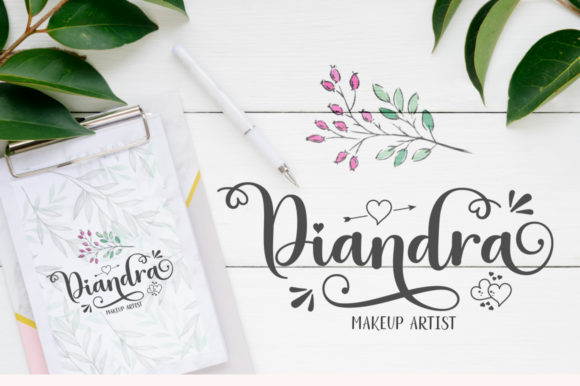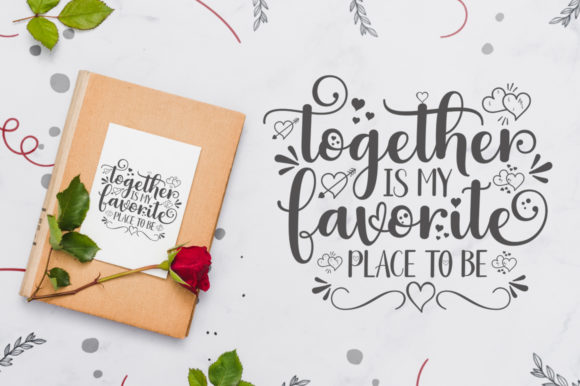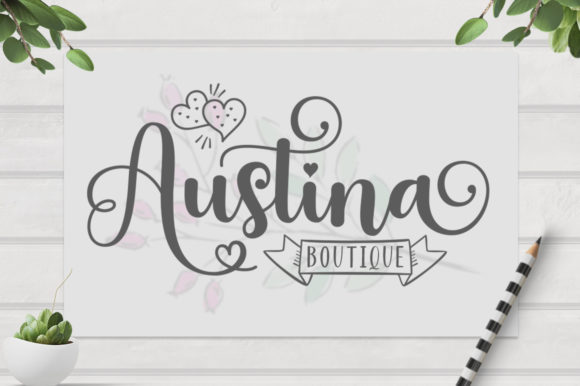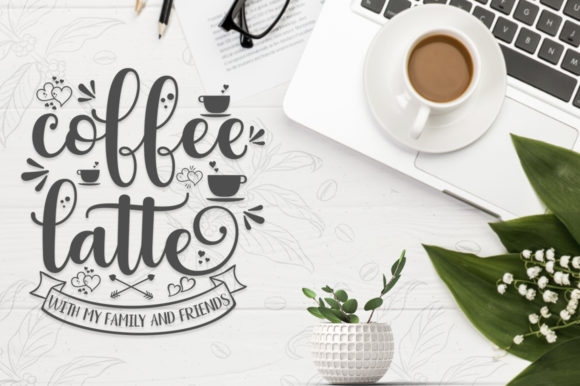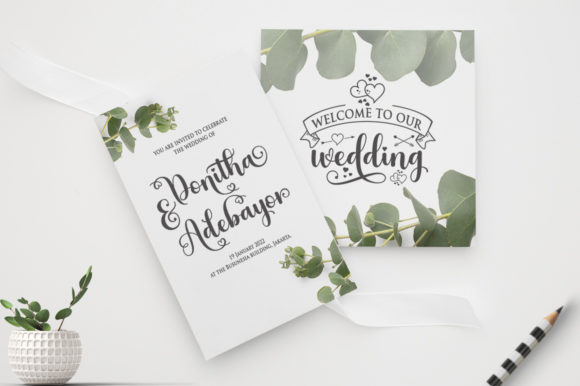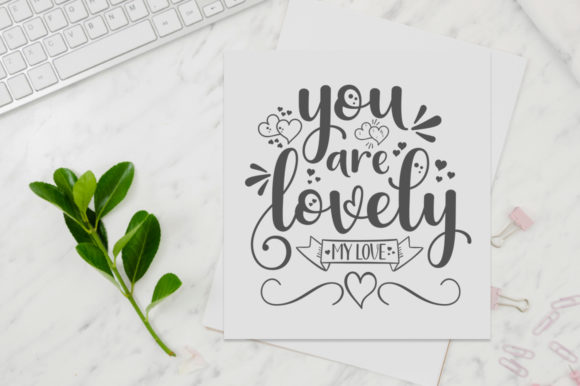
The Magic of Typography: Unleashing Creativity with Hello Bestlady Font
Have you ever had one of those moments where your design just comes alive? The colors, the shapes, the text – everything falls into place, and you know you’ve created something truly special. For designers, these moments are the ones we live for. But what makes the difference between a good design and a great one? Sometimes, it’s just the right font.
That’s where the Hello Bestlady Font comes in – a spectacular duo font that’s equal parts modern and elegant. This versatile font is perfect for a wide range of designs, from wedding invitations to brand logos. With its beautiful sans-serif and script styles, Hello Bestlady Font adds a touch of sophistication and whimsy to any project. Whether you’re a seasoned pro or just starting out, this font is a valuable addition to your design toolkit.
- Unique Characteristics: Hello Bestlady Font features a unique, elegant script style with flowing connections between letters, making it ideal for use in wedding invitations, announcements, and other special occasions.
Hello Bestlady Font Review
Overall, I found the Hello Bestlady Font to be a sweet addition to any design project. The ✨ elegant and whimsical feel makes it perfect for wedding invitations, baby showers, and other celebratory events.
- ✨ Unique character set that’s both playful and sophisticated
- ✨ Wide range of language support, making it a great choice for global projects
- ⚠️ Limited font sizes and styles available (I wish there were more options!)
- ⚠️ May not be suitable for professional or formal projects due to its playful nature
- ⚠️ Some users may find the font too ornate or distracting
Overall, I think the Hello Bestlady Font is a lovely choice for the right project. It’s perfect for adding a touch of whimsy and romance to your designs. Just be sure to consider the limitations and use it in a way that suits the tone of your project.
The Hello Bestlady font is ideal for feminine and elegant designs, making it perfect for wedding invitations, baby showers, and other special occasions.
To get the most out of the font, use it in combination with other feminine elements, such as floral patterns and pastel colors.
Alternatives to Hello Bestlady Font
Playfair Display is a luxurious and elegant font that is perfect for high-end branding and advertising. It has a classic feel and is ideal for use in headings and titles. Compared to Hello Bestlady Font, Playfair Display is more refined and sophisticated, making it suitable for premium brands and high-end products.
Lato is a clean and modern sans-serif font that is highly legible and versatile. It is suitable for a wide range of applications, including digital products, magazines, and websites. Compared to Hello Bestlady Font, Lato is more straightforward and less ornate, making it a good choice for minimalistic designs.
Great Vibes is a beautiful and elegant script font that is perfect for creating a warm and inviting atmosphere. It is ideal for use in invitations, greeting cards, and other creative projects. Compared to Hello Bestlady Font, Great Vibes is more fluid and expressive, making it suitable for projects that require a personal touch.